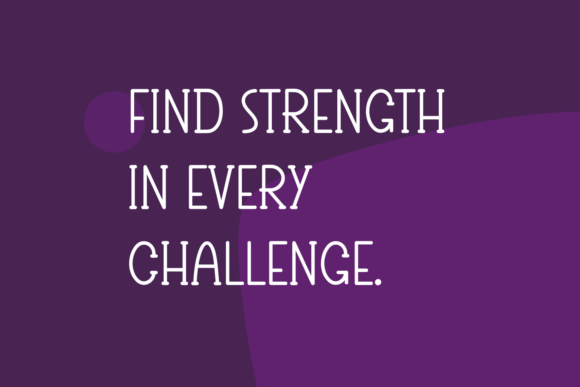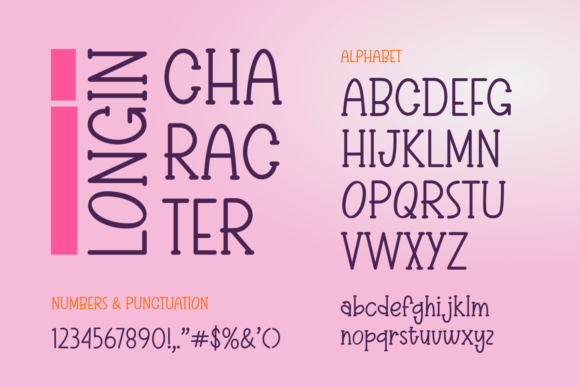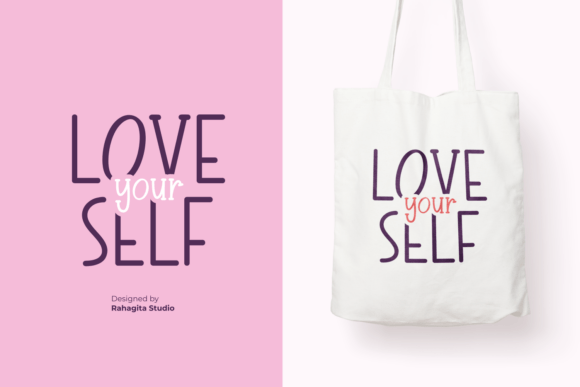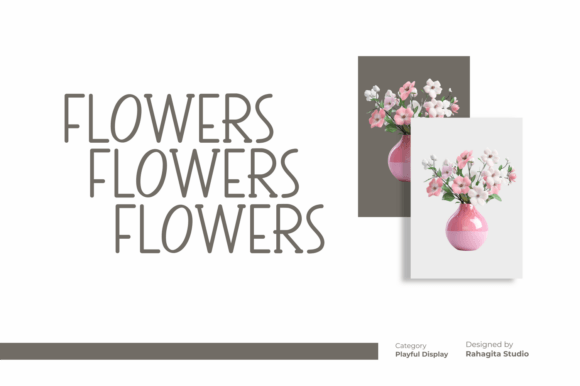
Introduction to Longin Font
Do you remember the moment when you stumbled upon the perfect font that elevated your design project from ordinary to extraordinary? For designers, this moment is pure magic. It’s the spark that sets off a creative explosion, transforming a blank page into a masterpiece. This is exactly what the Longin Font promises to deliver.
As a high-quality design resource, Longin Font is more than just a pretty face. Its transparent background and clean lines make it a versatile tool for any creative project, from book titles to logos and branding materials. Whether you’re working on a personal project or a professional endeavor, Longin Font is sure to bring a touch of whimsy and charm to your design.
Key Features of Longin Font
- High-quality typography with a transparent background, ideal for creative projects.
- Includes a range of font styles and weights, allowing for versatility in design applications.
- Designed to be highly legible at various resolutions, including 72 dpi and 300 dpi.
- Supports a wide range of languages, making it a suitable choice for international creative projects.
- Perfect for use in digital designs, such as logos, graphics, and typography-based artwork.
Honest Review: Longin Font
I recently came across the Longin Font, a beautiful, high-quality design resource that’s perfect for any creative project. The moment I laid eyes on it, I knew I had to give it a try.
- ✨ High-quality typography that adds a touch of elegance to any design
- ✨ Transparent background, making it easy to customize and integrate into any project
- ✨ Versatile design that suits a wide range of creative projects, from logos to brochures
- ⚠️ Limited font variations, which might not be suitable for larger design projects
- ⚠️ No bold or italic font styles available, which can be a bit restrictive
Overall, I’m impressed with the Longin Font. It’s a great addition to any designer’s toolkit, and its free download makes it an even more attractive option. While it may have its limitations, the Longin Font is definitely worth considering for your next creative project.
Tips for Getting the Most Out of Longin Font
To get the most out of the Longin Font, experiment with different font sizes, colors, and layering techniques. The font’s transparent background makes it easy to create unique and eye-catching designs.
The Longin Font is perfect for creative projects such as logo designs, business cards, and brochures. Its high-quality and stylish look makes it an excellent choice for any design application.